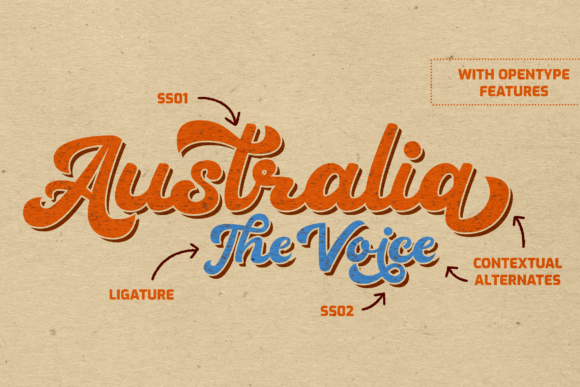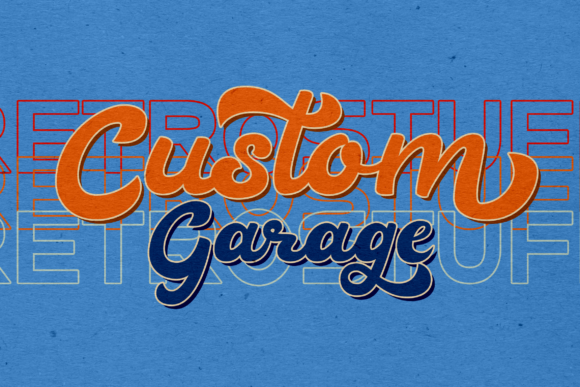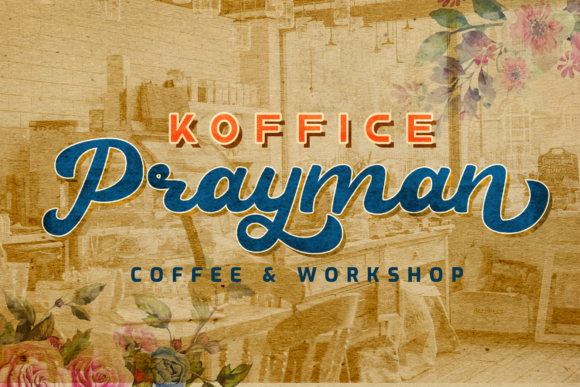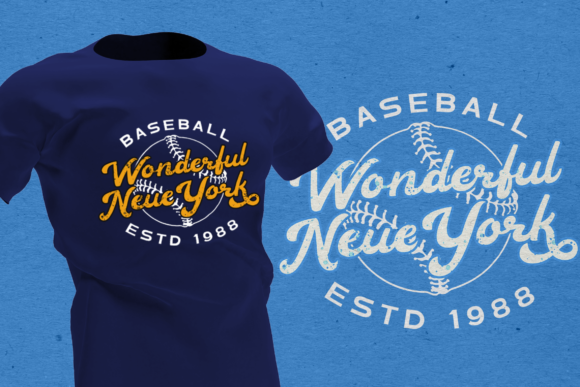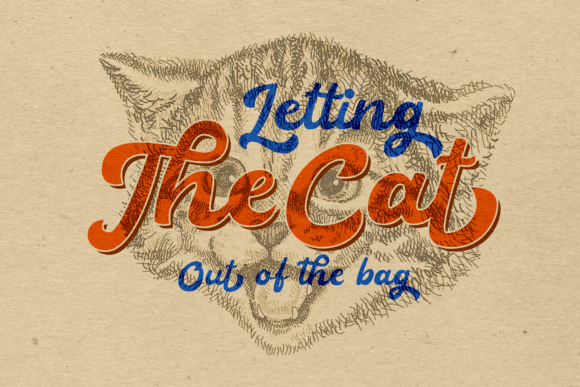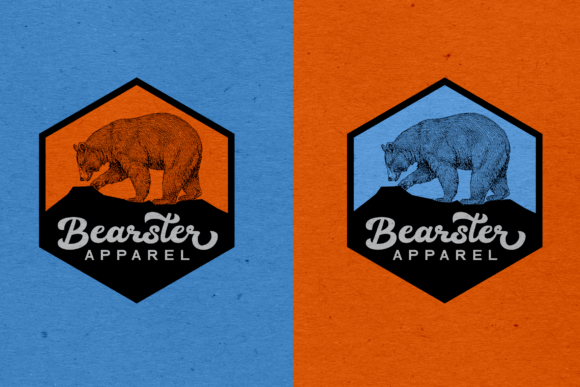
Introduction to Heylova Font
Heylova is a gorgeous, vintage styled and bold handwritten font, crafted to give your headlines and logotype projects a stylish touch.
This font reads as strong, confident, and dynamic and can add tons of nostalgic character to your designs .